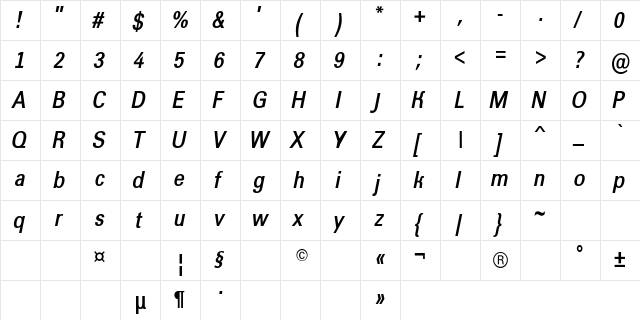
a_GroticNr BoldItalic
Design Context for a_GroticNr Typeface
a_GroticNr takes a measured approach to typography — its balanced proportions and neutral character make it a reliable workhorse for both digital and print work. The slanted form adds forward momentum and visual energy. Its bold stroke weight gives it real presence on the page.
Pro Tip: Try a_GroticNr for annotation and caption copy alongside an upright companion — the contrast in angle creates a dynamic but ordered typographic system.